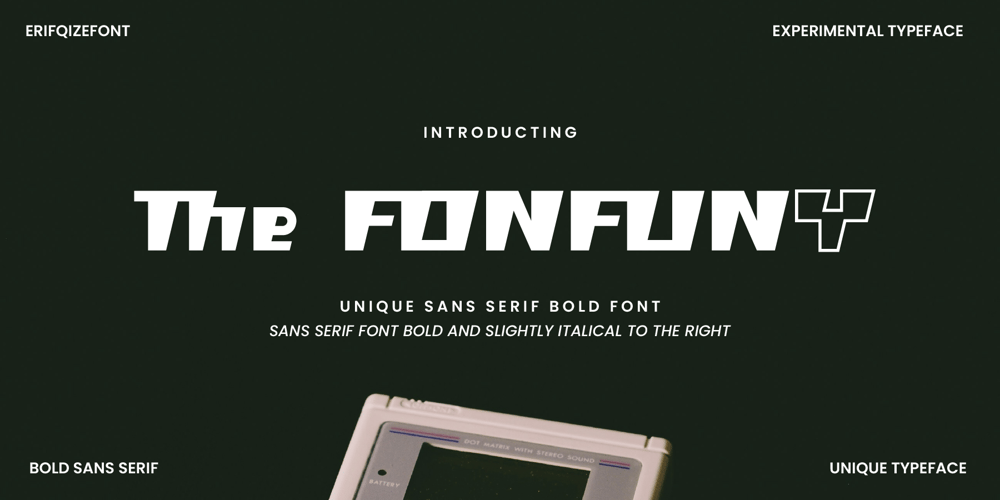
The Fontfuny Font Family was designed by Eka Rifqi Setiawan and published by Erifqizefont. The Fontfuny contains 1 styles and family package options. Erifqizefont is a bold, sans-serif typeface designed with a unique and modern twist. It features a slight italic slant to the right, giving it a dynamic and energetic appearance. With over 50 ligatures and alternates, Erifqizefont offers extensive flexibility for creative typography. Both uppercase and lowercase letters are thoughtfully crafted to ensure legibility while maintaining a bold and assertive presence. Designed by The Fontfuny Foundry, this typeface is perfect for branding, headlines, and projects that require a strong, bold statement. Thanks you